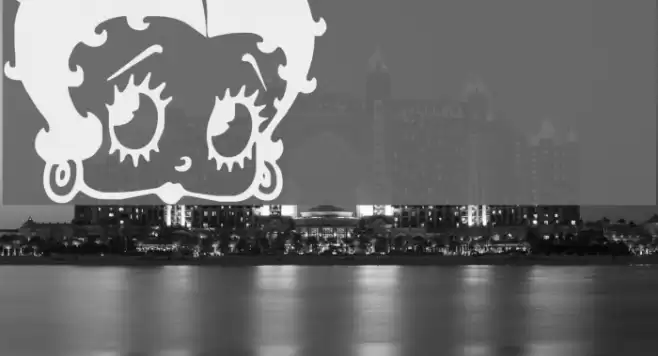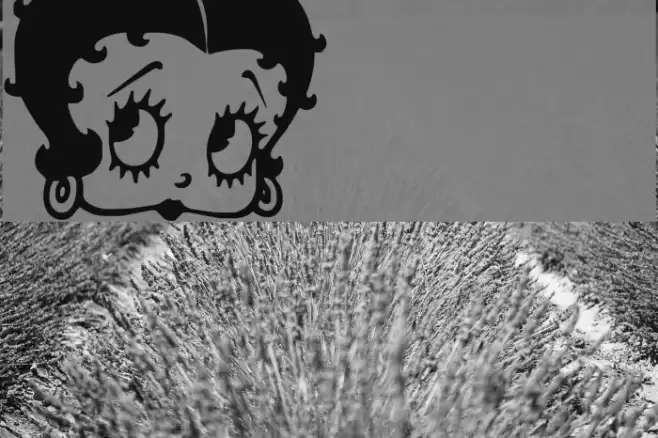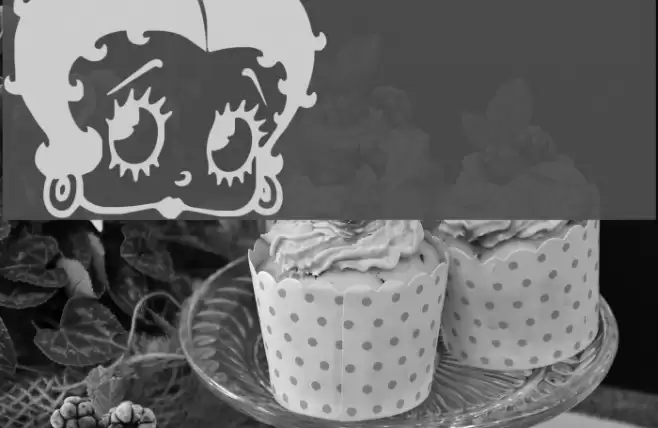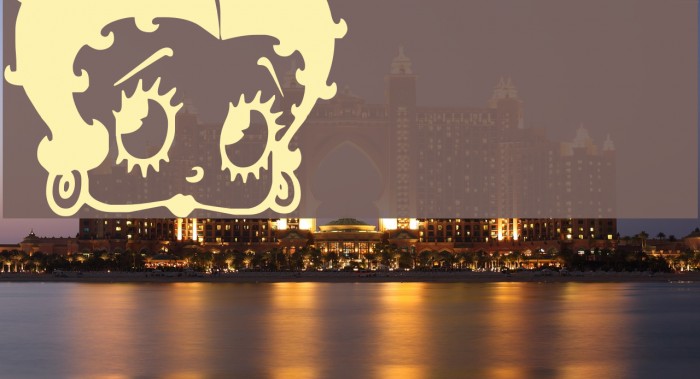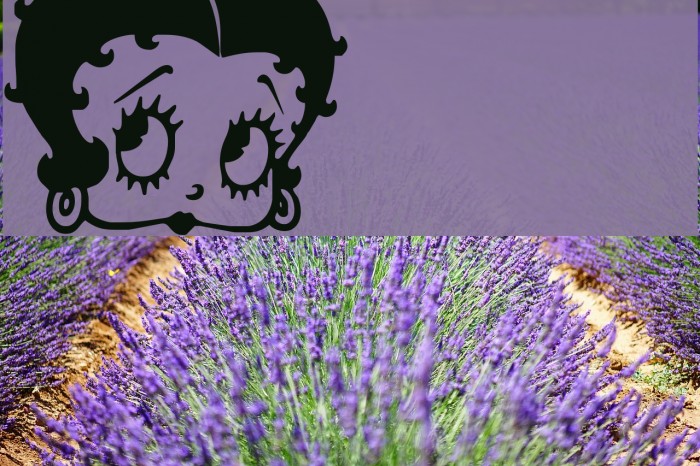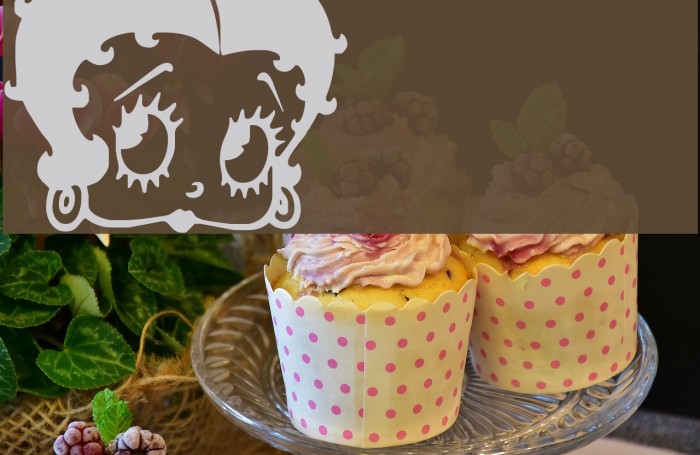
GrimNatwickBetty Font
GrimNatwickBetty Description
Playful, cartoon-inspired font with exaggerated curves, whimsical shapes, and a hand-drawn feel reminiscent of early animation lettering.
A whimsical, cartoon-style display font with playful curves from Cartoon fonts.
- Proposed Projects: Children's books, comic titles, retro posters, playful branding, animation projects.
- Overall Style: Vintage, Decorative, Playful